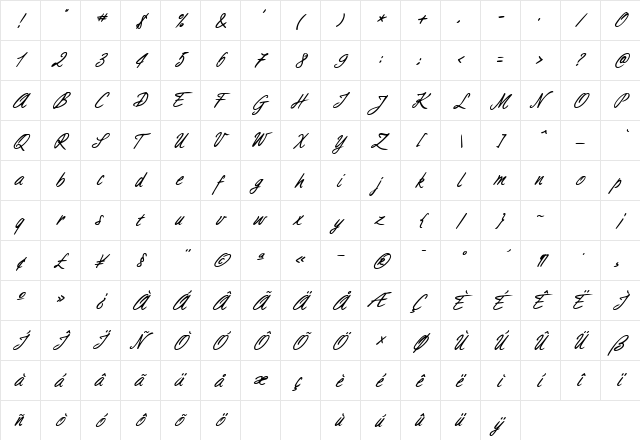
Aimee BoldItalic
Aimee Family
Aimee BoldItalic
Design Context for Aimee
Aimee is a composed and adaptable typeface that performs quietly and consistently across a wide range of design contexts. The slanted form adds forward momentum and visual energy. Its bold stroke weight gives it real presence on the page.
Pro Tip: Use Aimee for emphasis, pull quotes, and subheadings where its slanted energy can add rhythm to the layout.